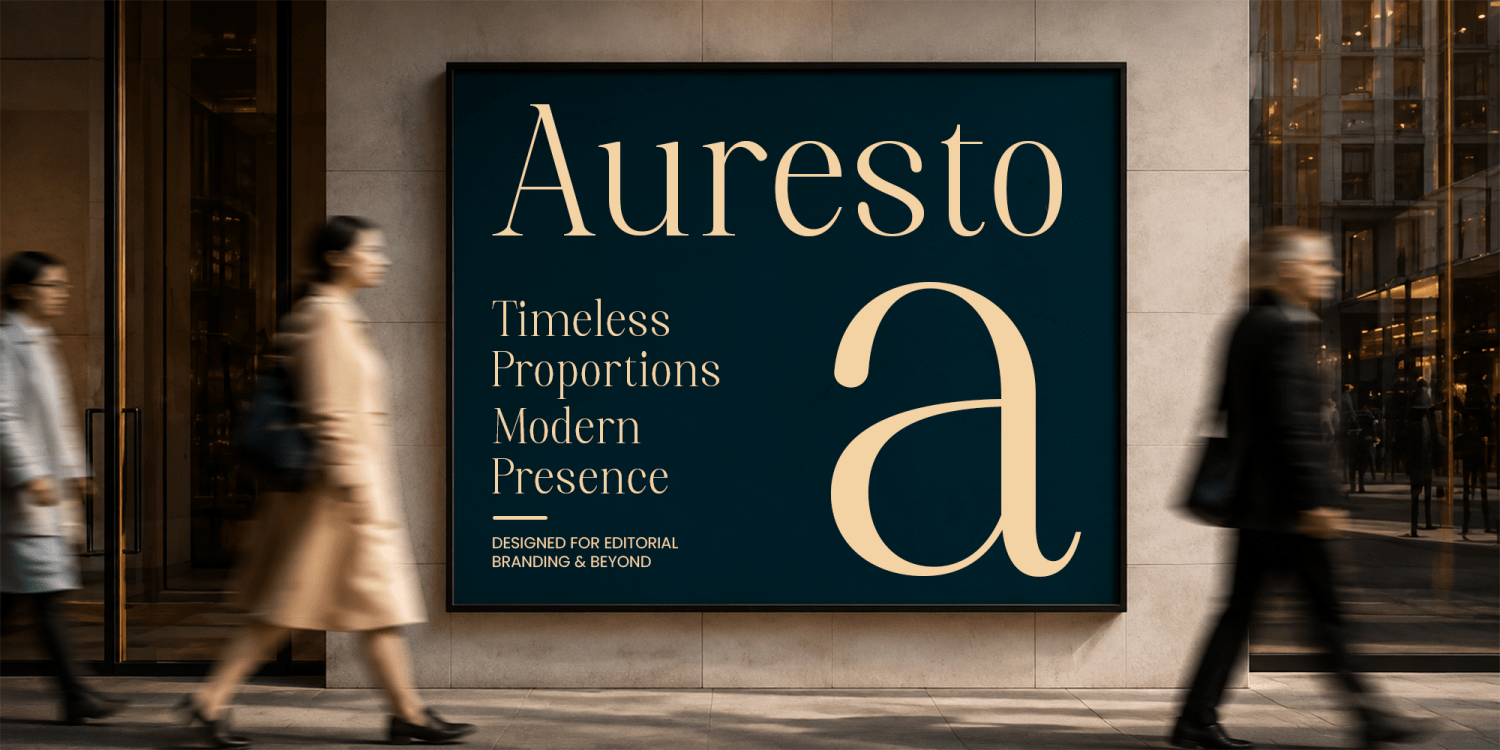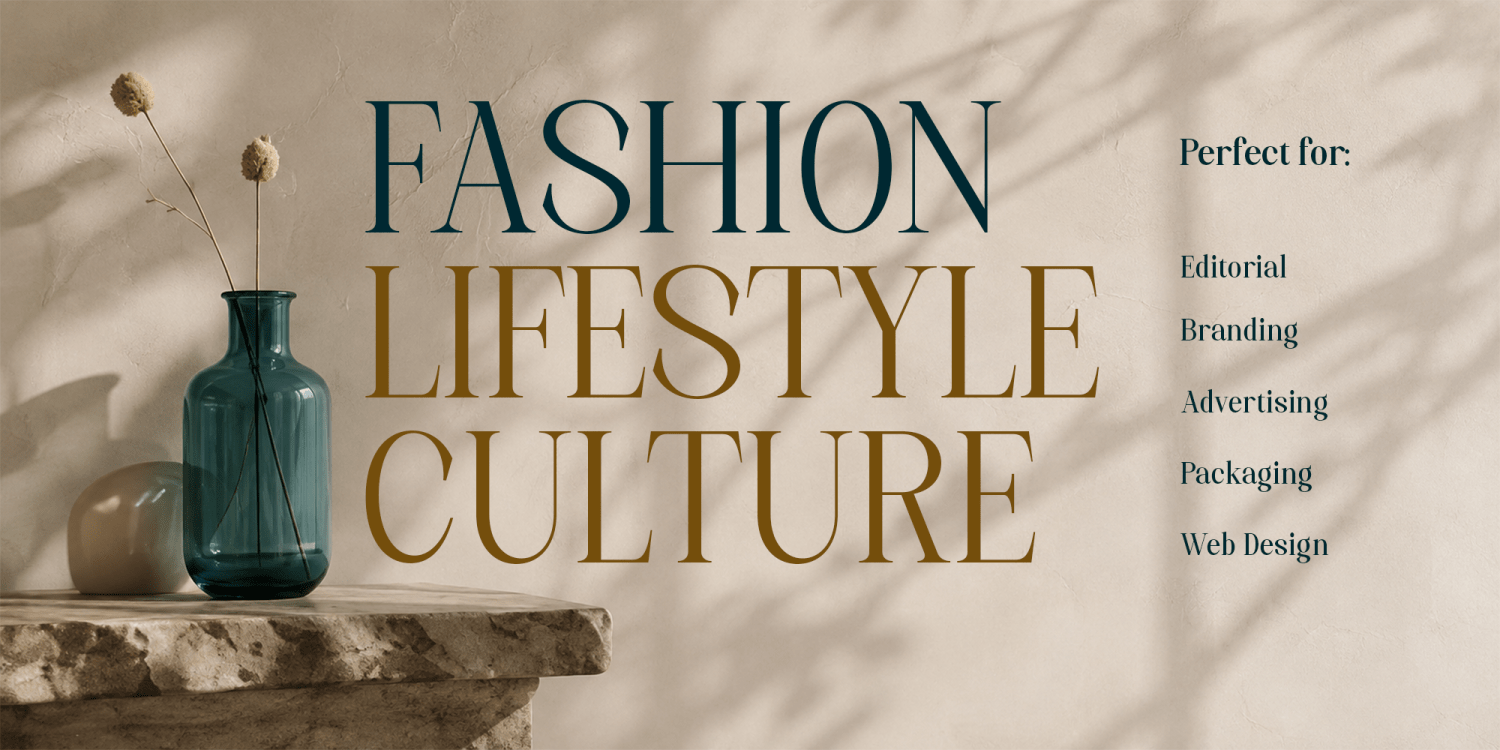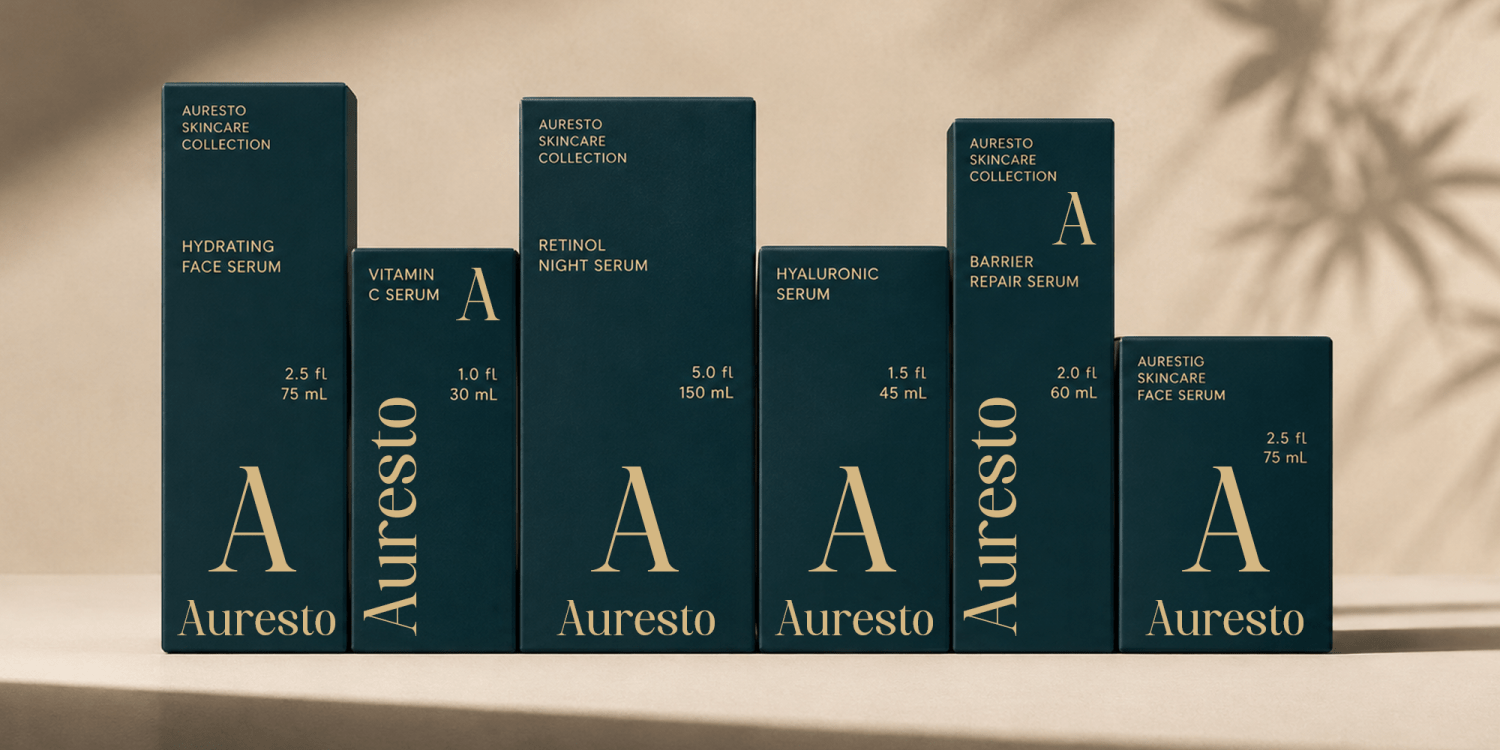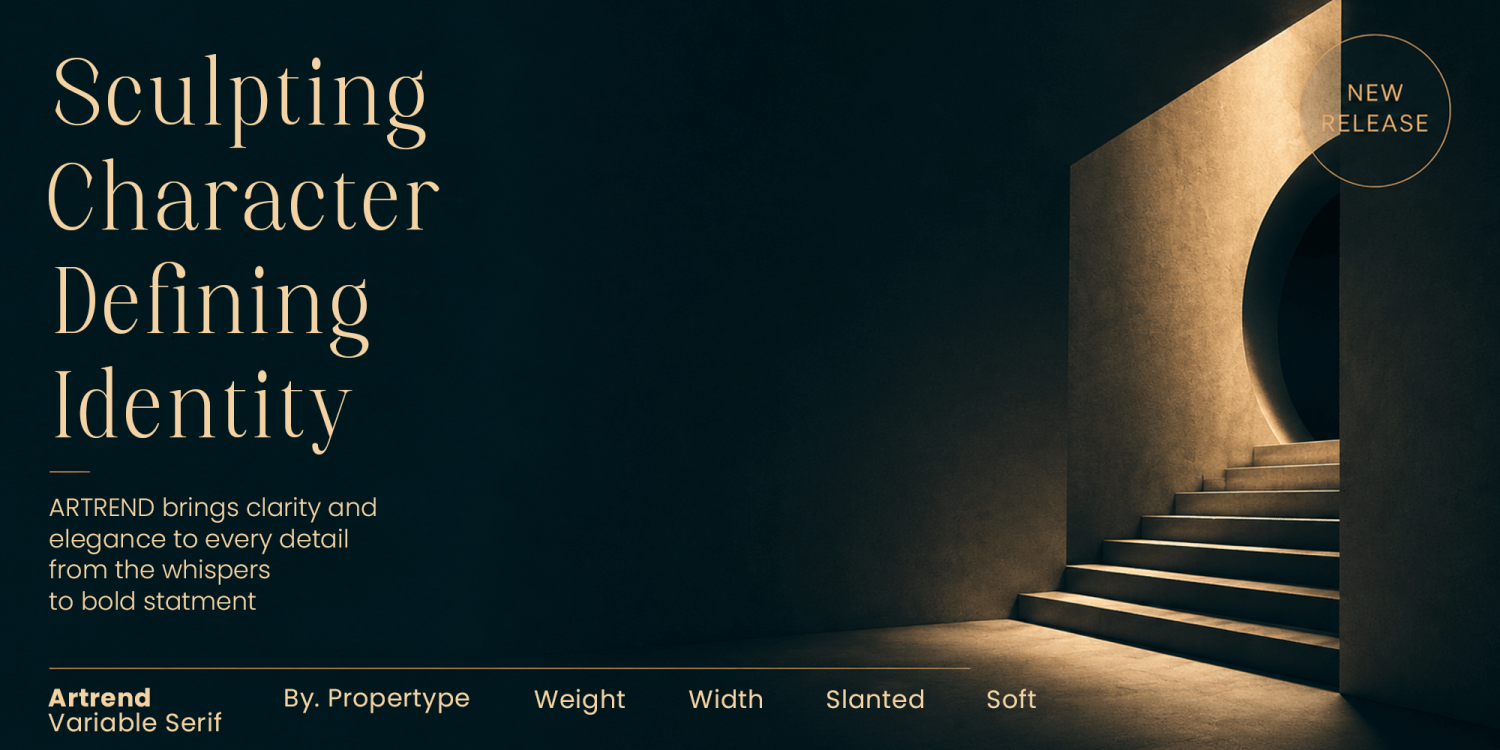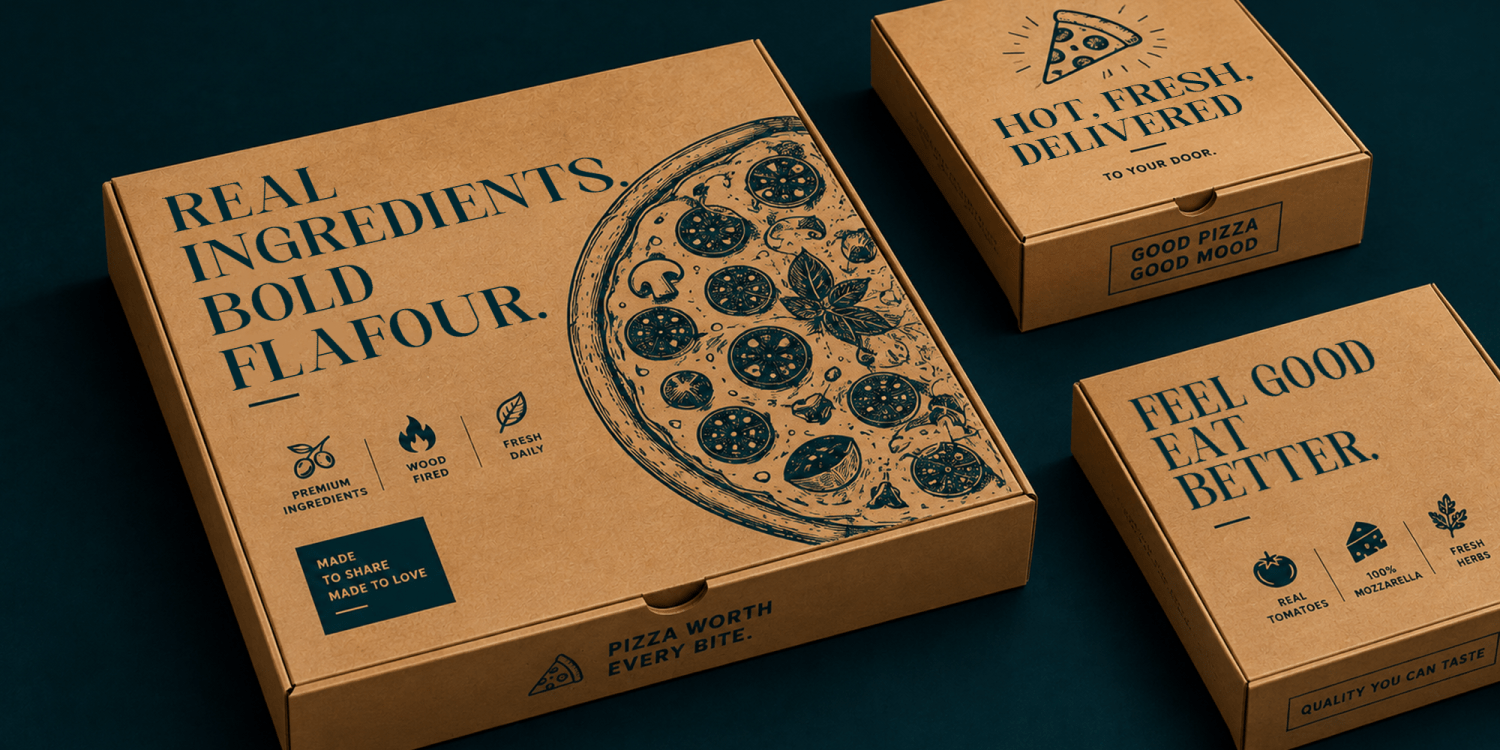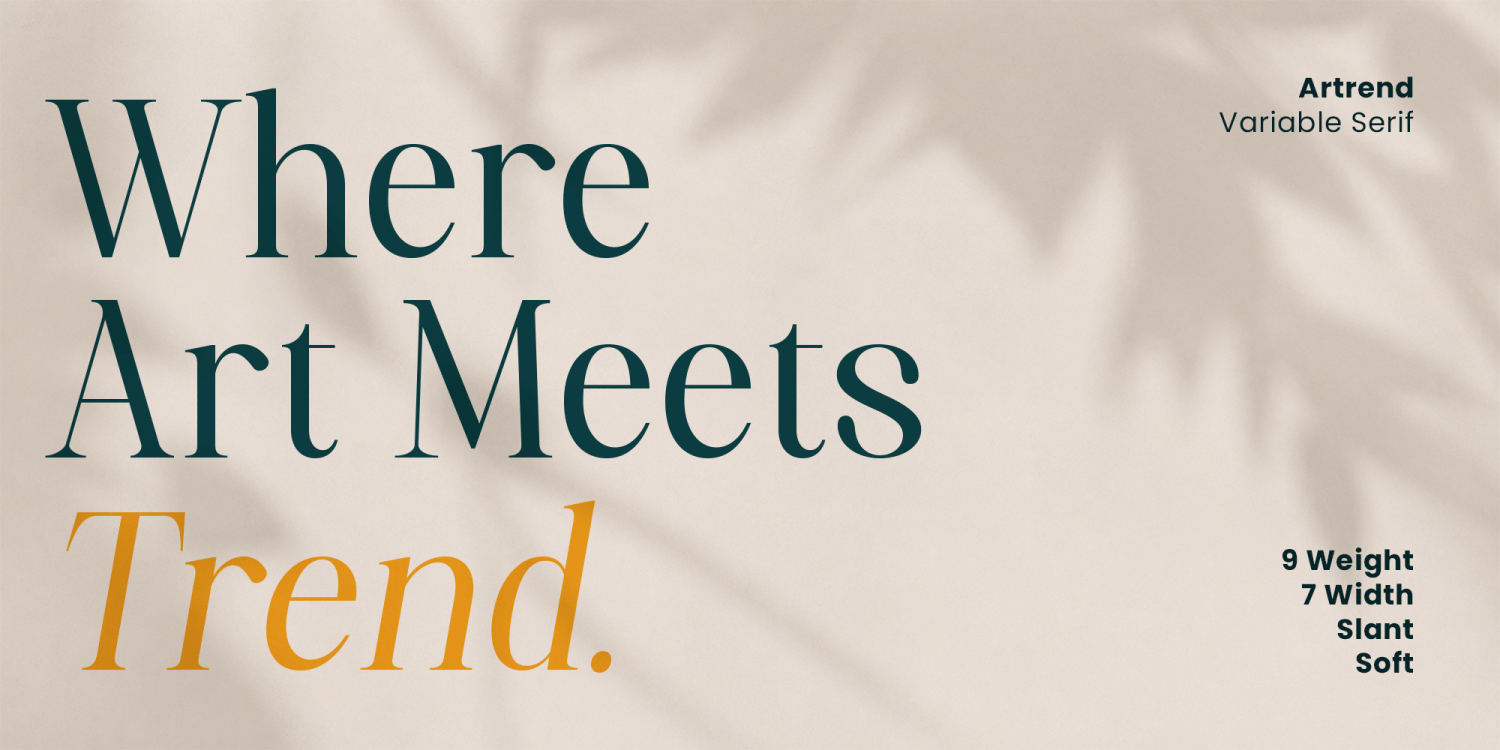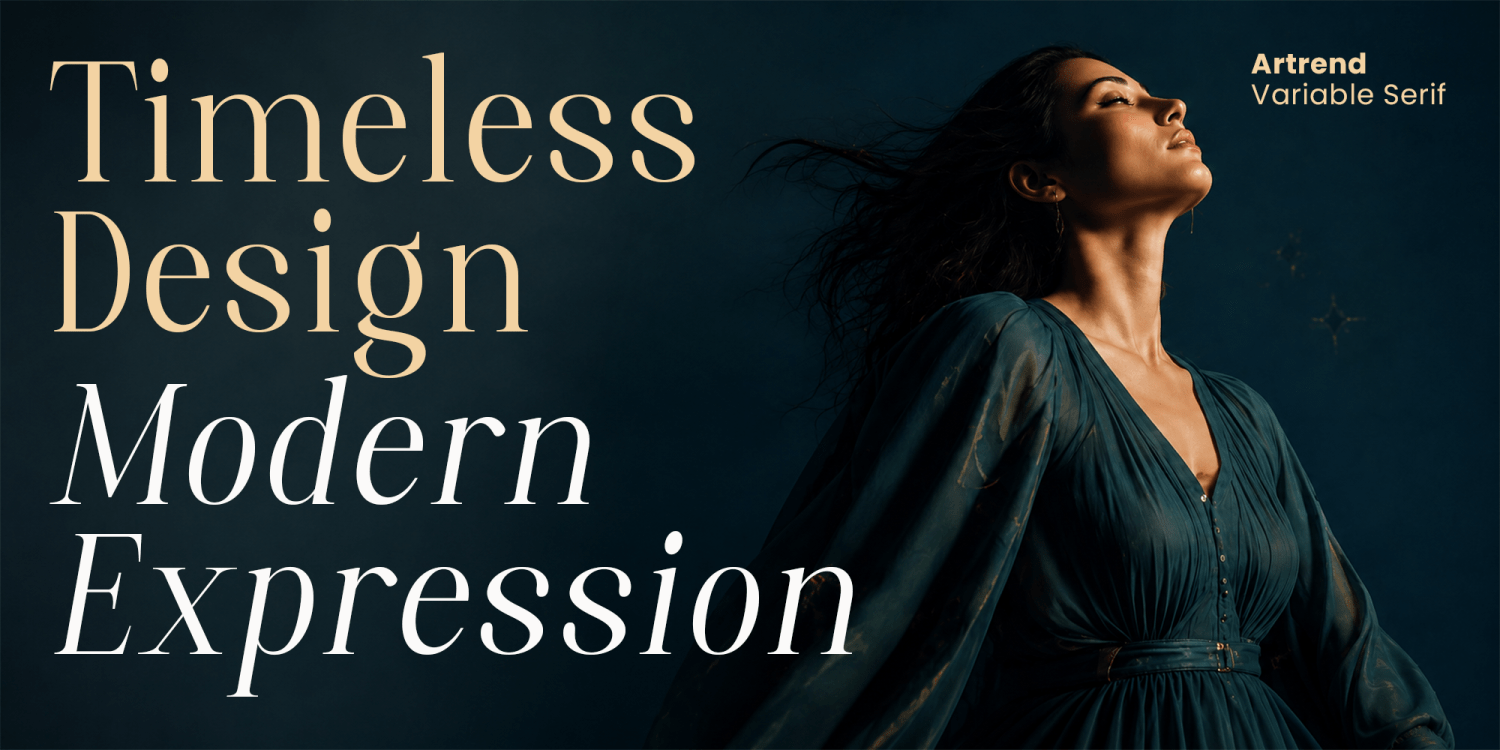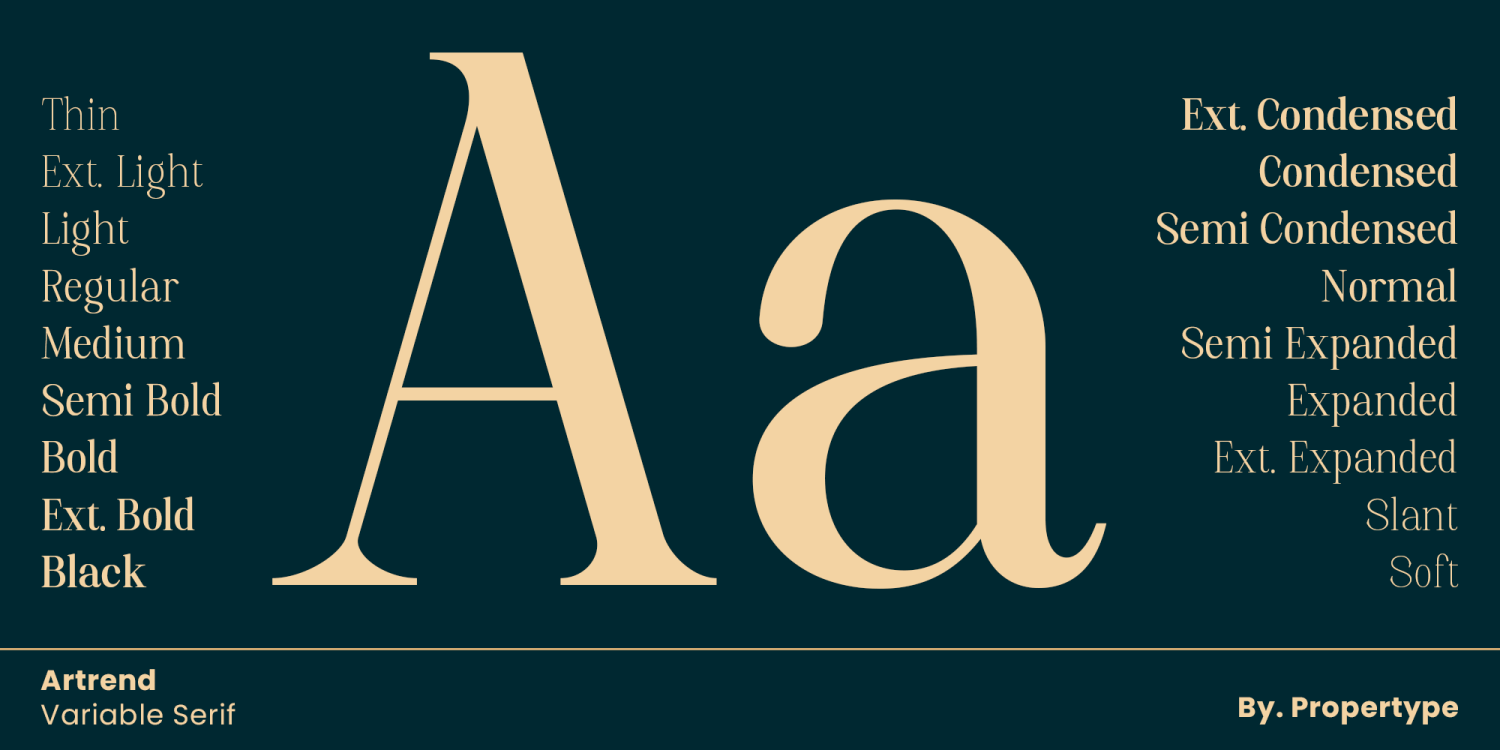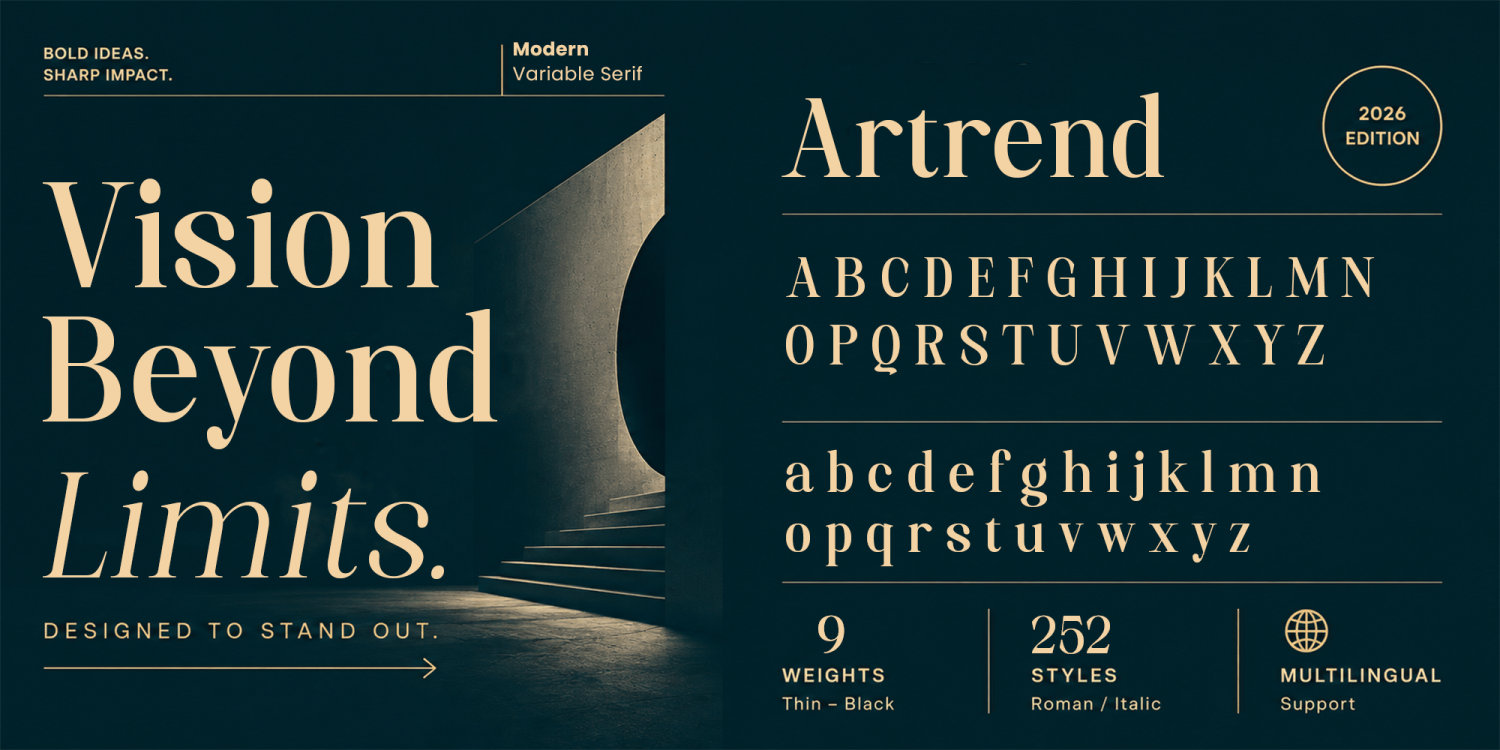
Artrend
Artrend is an elegant, modern, and contrasting serif font family. It includes both upright and italic styles. This versatile font is perfect for any project, contrasting, modern, and easy to read. With it, you can create logos, use it in advertisements, packaging, book and magazine covers, titles, descriptions, and more.
Uppercase Characters
Lowercase Characters
Numbers and Ligatures
The Artrend family has multilingual support for a variety of languages.